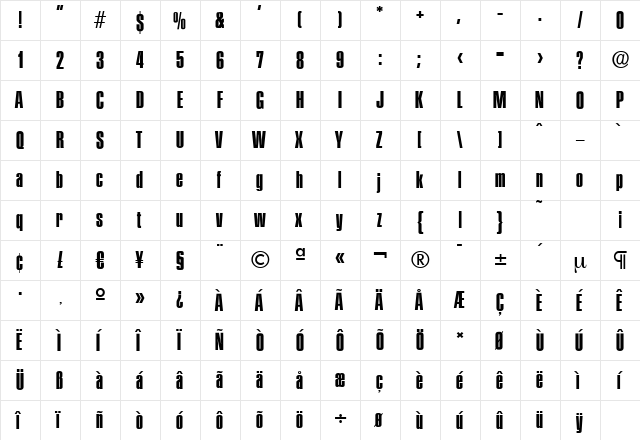
PlaketteSerial Bold Font Preview
PlaketteSerial Bold
Design Context for PlaketteSerial Typeface
PlaketteSerial offers clean, dependable letterforms without strong stylistic allegiance, making it a practical choice for designers who need flexibility. The heavy weight commands attention and anchors typographic hierarchies.